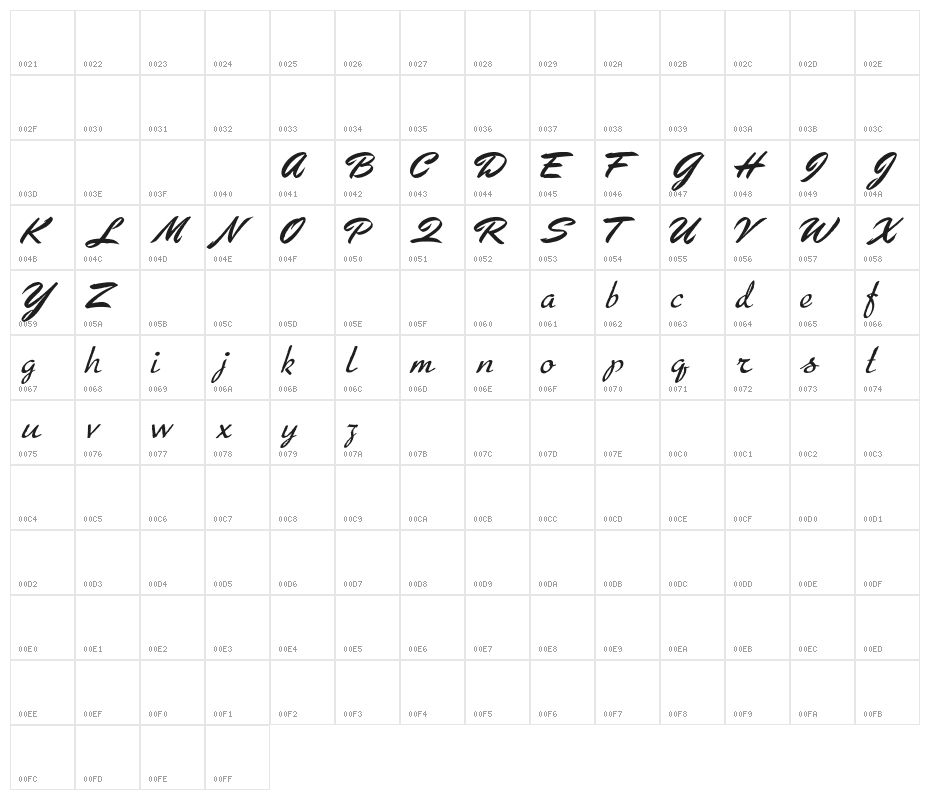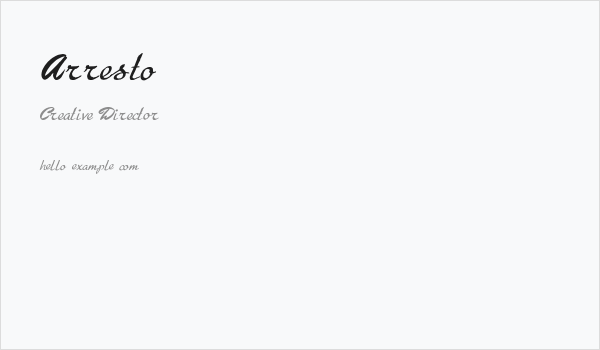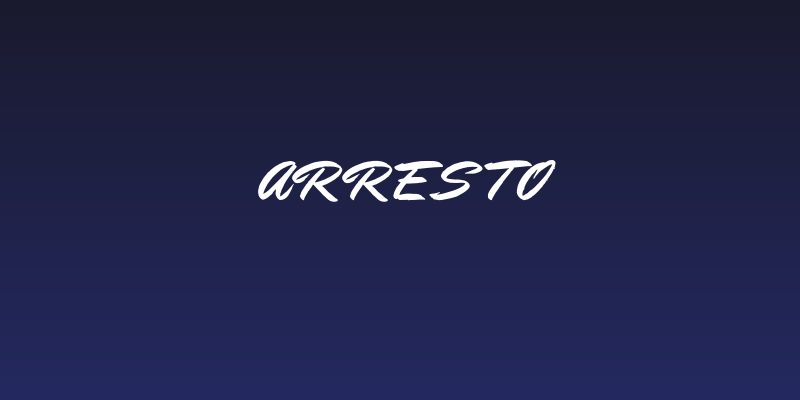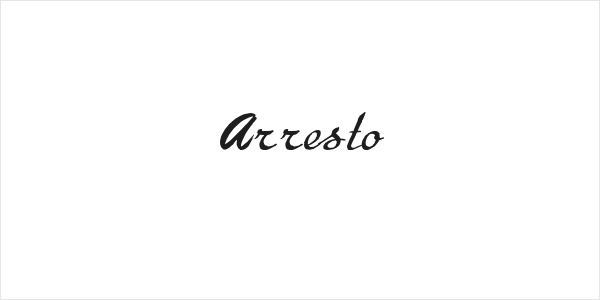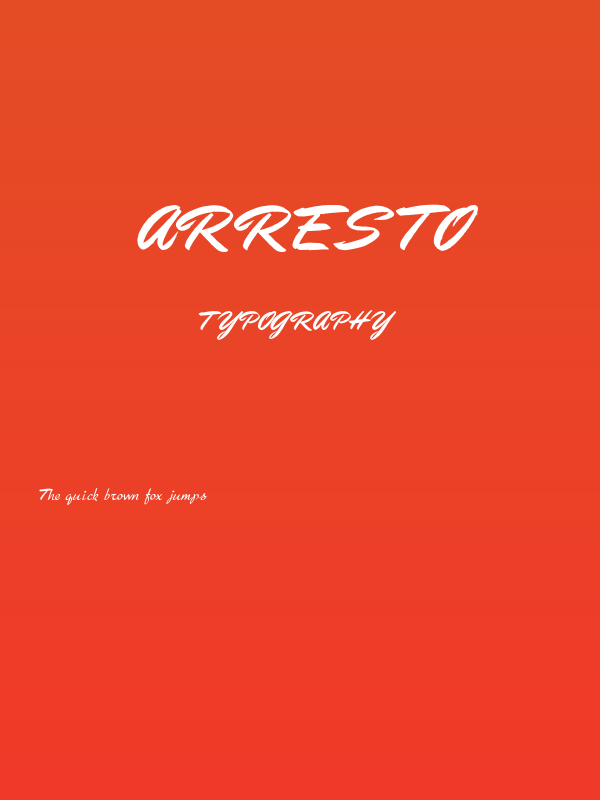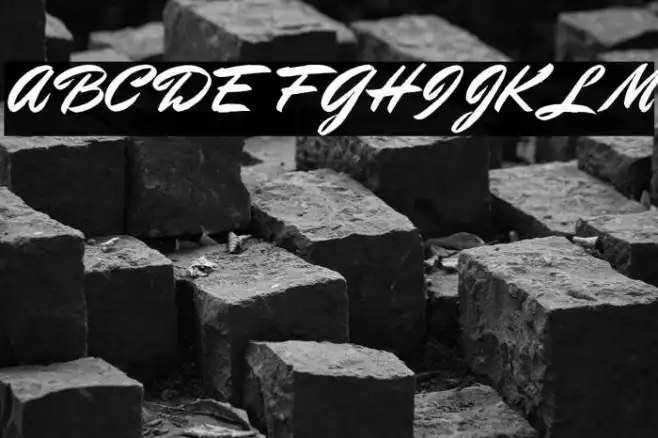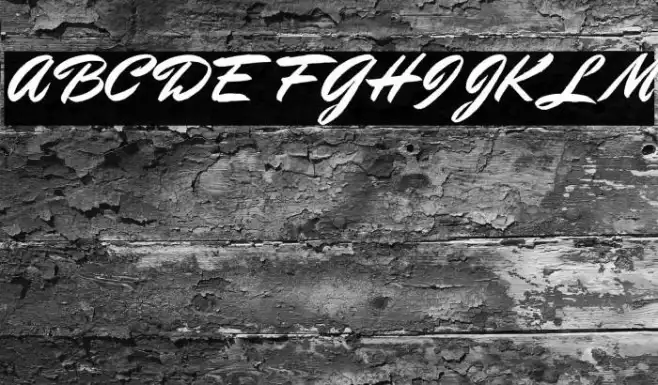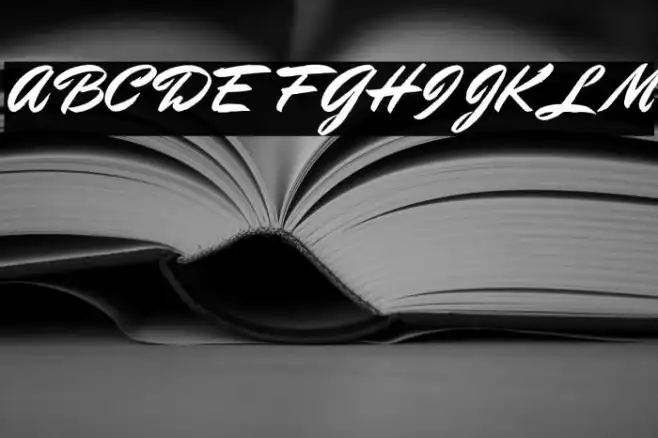
Arresto Font
Arresto Description
This font features a dynamic and expressive script style with a handwritten appearance. The letters are fluid and connected, giving a sense of movement and elegance. The strokes vary in thickness, adding a lively and artistic flair. The uppercase letters are bold and prominent, while the lowercase letters maintain a consistent flow. The numbers and special characters are designed to match the overall aesthetic, ensuring a cohesive look across all text. This font is ideal for projects that require a personal touch or a creative, informal vibe.
| Proposed Projects | Ideal for invitations, greeting cards, branding, and creative projects that require a personal or artistic touch. |